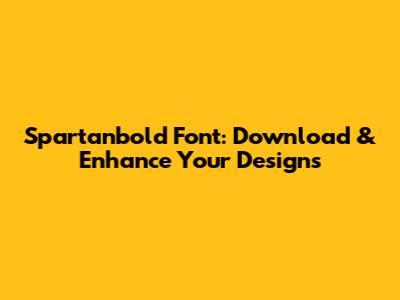
Spartanbold Font: Download & Enhance Your Designs
Hey guys! Are you on the hunt for a killer font that can give your designs a real punch? Look no further, because we're diving headfirst into the world of Spartanbold, a font that's been making waves for its strong, confident presence. In this article, we'll break down everything you need to know about Spartanbold, including where to find a free download, how to use it, and why it's a fantastic choice for a whole bunch of projects. Let's get started, shall we?
Unveiling Spartanbold: A Font with Attitude
Alright, first things first: What exactly is Spartanbold? Think of it as a typographic powerhouse. It's a bold, strong, and highly legible font that immediately grabs your attention. It's commonly used for headlines, titles, and anywhere you want to make a statement. The font’s design is clean and modern, making it versatile enough to fit a wide range of design styles. Whether you're working on a website, a poster, a logo, or even a social media post, Spartanbold can bring a sense of authority and clarity to your message. The font's weight is its defining feature. It's not just bold; it's Spartan bold, meaning it's extra thick and robust. This makes it stand out from the crowd and ensures that your text remains easily readable, even at smaller sizes or against busy backgrounds. Spartanbold isn't just about aesthetics; it's also about functionality. Because of its weight and clear letterforms, it's very readable. This is crucial for anything that involves conveying information – from website headers to book titles. You need a font that not only looks good but also does its job by getting the message across clearly. The versatility of Spartanbold is a huge plus. It works exceptionally well in both print and digital media, and you can pair it with various other fonts to create compelling design layouts. Many designers use it with a lighter, sans-serif font for body text to create a balanced look. The idea is to make the headlines pop with Spartanbold and then provide a more subtle, easier-to-read font for the main content. This contrast really helps guide the reader's eye and organize the information in a clear, accessible manner. Moreover, the strong character of Spartanbold makes it ideal for a variety of branding projects. From logos to marketing materials, the font can help create a memorable and impactful brand identity. Its bold presence instantly communicates strength, reliability, and modern sensibilities. So, if you want your brand to be perceived as trustworthy and impactful, Spartanbold could be a perfect choice. The design also often features a clean, simple design, which is another reason it’s so versatile. It does not carry any extra frills or excessive ornamentation, meaning it can be adapted to almost any project, no matter the specific style or target audience. This adaptability makes Spartanbold a valuable asset in any designer's toolbox. The boldness of Spartanbold also lends itself well to conveying a sense of importance or urgency. If you want to draw attention to a call to action or a special offer, this font will do the trick. Its striking appearance means it's perfect for making a statement and making sure your message is seen and remembered. It's all about making an impression and ensuring that your content leaves a lasting mark on the viewer or the reader. In essence, Spartanbold is more than just a font; it is a design tool that combines aesthetic appeal with practical functionality, making it a powerful ally for any designer or anyone seeking to communicate a strong message.
Using Spartanbold in Your Designs: Tips and Tricks
Okay, you've got Spartanbold. Now what? Using it effectively is all about knowing a few key things. First off, because it's so bold, you'll want to use it sparingly, like a secret weapon. It’s amazing for headlines, titles, and short, impactful phrases. If you overuse it, your design will look overwhelming. Think of it as the star player on your team – bring it in at the right moments and let it shine. Pair Spartanbold with other fonts that are more subtle. A good rule of thumb is to contrast it with a sans-serif font for body text. This contrast makes your design look balanced and easy to read. A lighter font will help soften the bold impact of Spartanbold, ensuring a good reading experience. Experiment with different sizes and weights. Spartanbold comes in different weights, and you can play with the size to find the right balance for your design. Smaller sizes work well for subtitles or short taglines, while larger sizes are best for headlines and main titles. This flexibility lets you control the emphasis and visual hierarchy of your project. Pay attention to the spacing. Because Spartanbold is so thick, you may need to adjust the letter spacing (kerning) and line spacing (leading) to make it more readable. This is particularly important with larger text sizes. Tighten up the spacing a bit to avoid your letters looking like they are falling apart, or increase it to make the text appear more open and breathable. Consider the color palette. Spartanbold looks great with many colors, but it’s particularly effective when paired with bright or contrasting colors. This will help make the text pop and draw the reader's eye. Think about the mood and the message you want to communicate. Use Spartanbold to reinforce the personality of your brand or the subject matter of your project. Make sure that the overall design supports your message, not distracts from it. This also makes it stand out from the other elements of your design. Try using Spartanbold to create a logo. The font's strong personality is perfect for making a brand logo memorable. Its clean lines and robust appearance make it a superb option if you want a logo that suggests strength, confidence, and reliability. This makes it an ideal choice for many business types and individual brands. Always preview your design on various devices and platforms. Make sure the font looks good on different screens and in various formats, such as print or digital. This helps ensure that your design maintains its impact no matter where it's viewed. Experiment with different layouts. The font is very versatile and can be used in a range of design layouts, from websites to posters, and even social media graphics. Take the time to create several layouts before you decide on the final version. It can be useful to look at examples and get inspiration from other designs that use Spartanbold. This can spark new ideas and provide guidance on how to use the font effectively. In essence, using Spartanbold well is about understanding its strengths and limitations. By following these tips and tricks, you can leverage the font's power to create stunning and effective designs.
Spartanbold Font: Ideal Uses and Applications
Spartanbold is a versatile font, making it suitable for various projects. Its bold and clear design lends itself to a broad range of applications, providing high impact and excellent readability. It is particularly effective when used in headlines and titles. Its strong presence commands attention and immediately communicates the message. The font works wonders for creating compelling web pages, blog posts, and articles where you want to instantly grab the reader's interest. It's a great choice when your main goal is to draw the viewer into the content. Logos and branding are another area where Spartanbold shines. Its bold and clean lines give a feeling of stability and confidence, which makes it perfect for representing brands looking to project trustworthiness and strength. From corporate brands to personal projects, it provides a distinctive and professional look. Posters, flyers, and other marketing materials also benefit from the font's high visibility. It will help your text stand out, especially when combined with vibrant colors and engaging visuals. Spartanbold is a fantastic choice for promotional materials where capturing immediate attention is paramount. It is also very efficient for designing social media graphics. The font’s simple, striking look works extremely well on platforms like Instagram, Facebook, and Twitter. This makes it perfect for social media posts, ads, and other visual content that needs to be noticed quickly. For print media, such as books, magazines, and newsletters, Spartanbold adds clarity and style. Its bold weight ensures that titles and headings stand out, even when printed in smaller sizes or on busy pages. This is perfect if you want to make the text easily readable and add a touch of modern design. Creating infographics is another application where the font can be used to great effect. The clarity and simplicity of Spartanbold make it perfect for organizing information and creating easy-to-read, eye-catching graphics. These uses demonstrate the versatility and effectiveness of Spartanbold. From online to print, from branding to marketing, the font adds value to any design project requiring impact, legibility, and modern style.
Conclusion: Making Spartanbold a Part of Your Design Toolkit
There you have it, guys! Spartanbold is an excellent font choice to boost your designs and make a strong impact. From finding a free download to using it effectively, this guide provides all you need to get started. Just remember to always download fonts from safe sources, check the licensing, and experiment with its different weights and sizes to see what works best for your projects. Spartanbold will surely become a staple in your design toolkit! Happy designing!